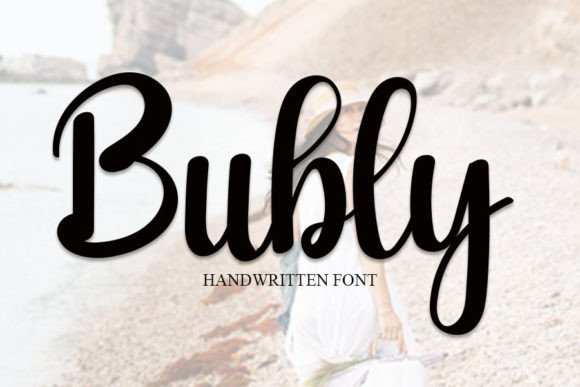
The Quest for the Perfect Font: Discovering Bubly
Ah, the eternal struggle of finding the perfect font for your design project. I recall working on a branding project for a trendy coffee shop, spending hours scrolling through font libraries, and yet, nothing seemed quite right. That was until I stumbled upon Bubly, a cool handwritten font that instantly caught my attention. In this article, I’ll share my experience with Bubly, its features, and how to make the most of this beautiful font.
First Impressions: A Balanced and Modern Font
Bubly is a modern, handwritten font that strikes a perfect balance between classic calligraphy and contemporary design. Its spotless form and varied strokes make it an excellent choice for designers, crafters, and creative hobbyists looking to add a personal touch to their projects.
An Honest Review of Bubly
What I Love About Bubly ✨
• ✅ Balanced and varied strokes: Bubly’s strokes are neither too thin nor too thick, making it easy to read and visually appealing.
• ✅ Modern vibe: This font has a fresh, modern feel that’s perfect for branding, packaging, and digital designs.
• ✅ OpenType features: Bubly supports OpenType features, including glyphs and stylistic alternates, giving you more creative control.
• ⚠️ Limited use in very small sizes: While Bubly is generally legible, it may not be the best choice for very small font sizes (below 10pt).
• ⚠️ Some letters may require manual kerning: As with any font, you may need to adjust kerning for certain letter combinations to achieve optimal results.
The Story Behind Bubly: Designer Inspiration
Bubly was designed with the goal of creating a modern, handwritten font that combines classic calligraphy with a fresh, contemporary vibe. The designer aimed to create a font that’s both elegant and approachable, making it perfect for a wide range of creative projects.
Q: What is Bubly font?
A: Bubly is a modern, handwritten font with a balanced and varied strokes, inspired by classic calligraphy.
Q: Is Bubly suitable for body text?
A: While Bubly is legible, it’s best suited for headings, titles, and short paragraphs. For longer body text, consider using a more traditional serif or sans-serif font.
Q: Does Bubly support OpenType features?
A: Yes, Bubly supports OpenType features, including glyphs and stylistic alternates, giving you more creative control over your designs.